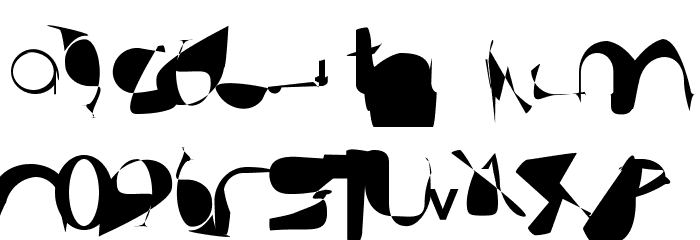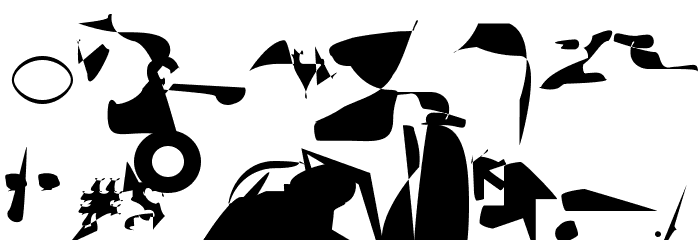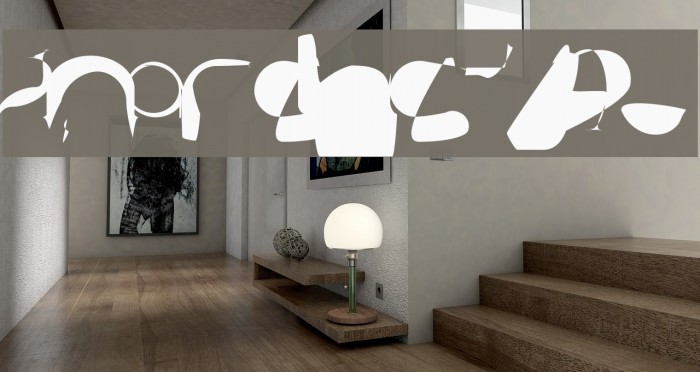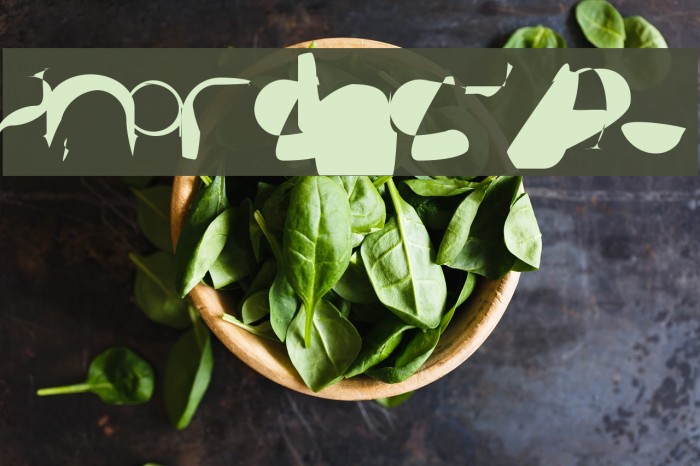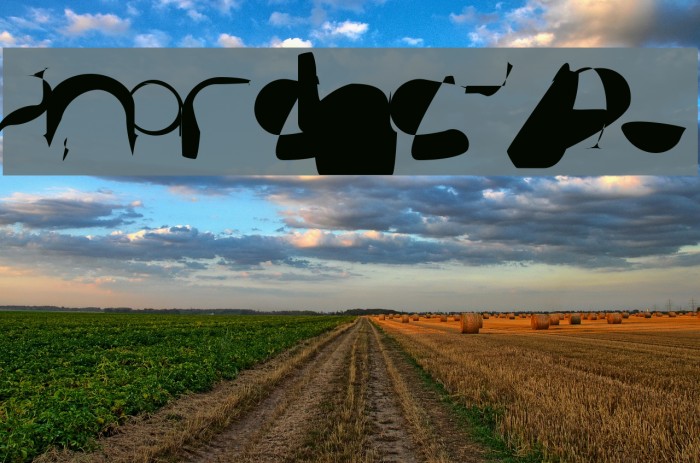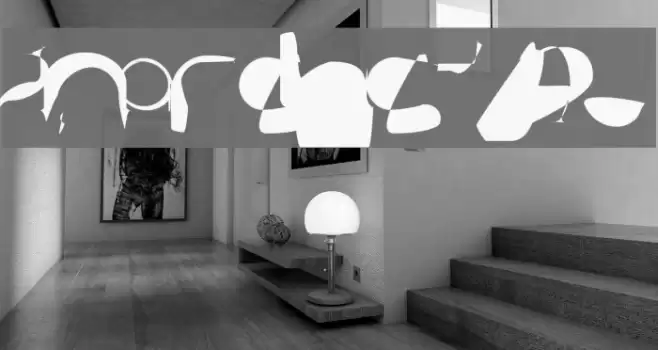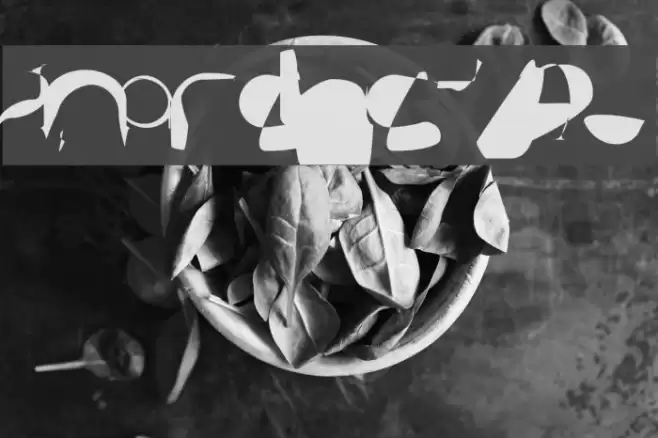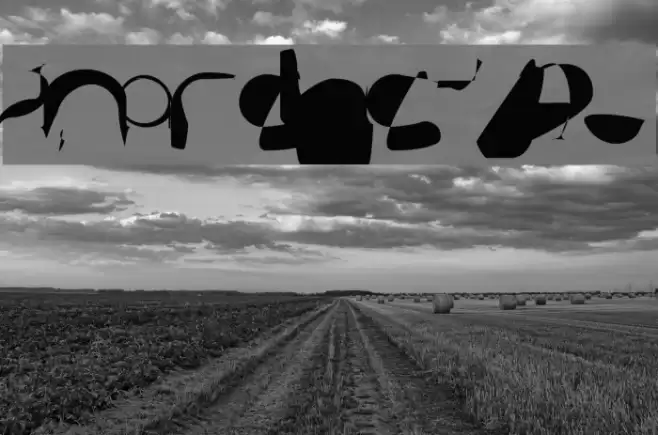
AnarchicType Font
This font presents a chaotic and abstract design, characterized by its fragmented and distorted letterforms. Each character appears to be deconstructed and reassembled in a way that challenges traditional readability, creating a sense of visual anarchy. The strokes are bold and irregular, with varying thicknesses that contribute to its dynamic and unpredictable appearance. This font defies conventional typography norms, making it a striking choice for projects that aim to convey a sense of rebellion or avant-garde aesthetics. Its unique style is not suited for body text but can make a powerful statement in artistic or experimental contexts.
A chaotic, abstract font with fragmented and distorted letterforms.
- Proposed Projects: Ideal for avant-garde art projects, experimental designs, or rebellious-themed posters.
- Character Spacing: Wide
- Overall Style: Avant-garde
- Use Case: Artistic displays, experimental designs, statement pieces.